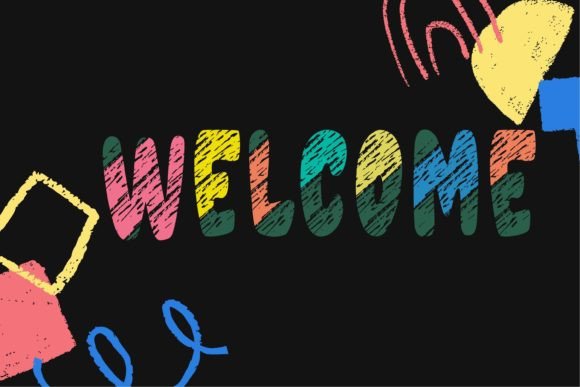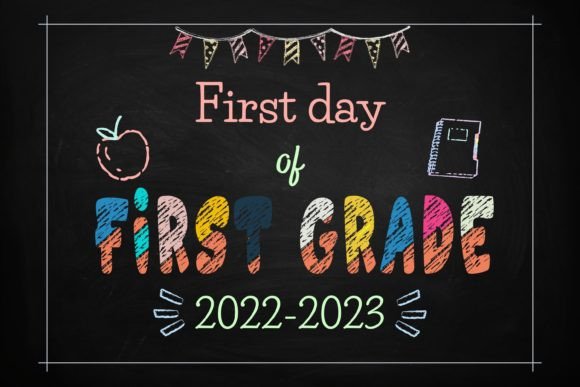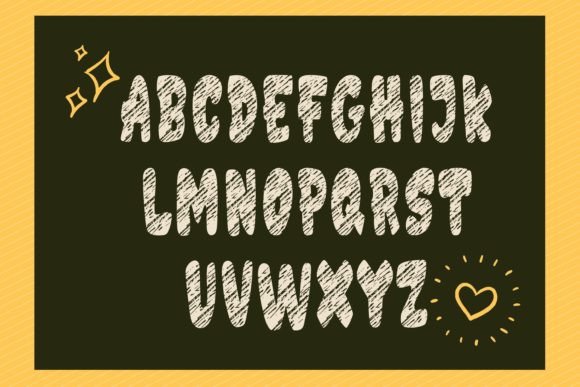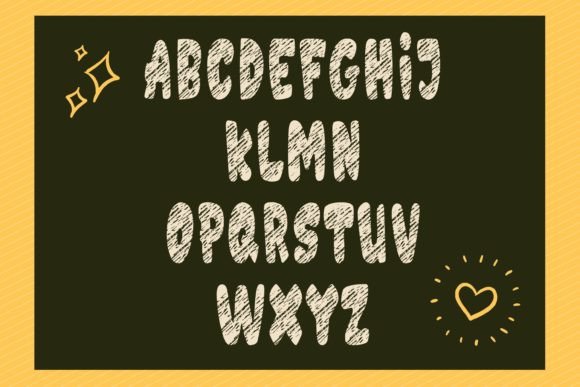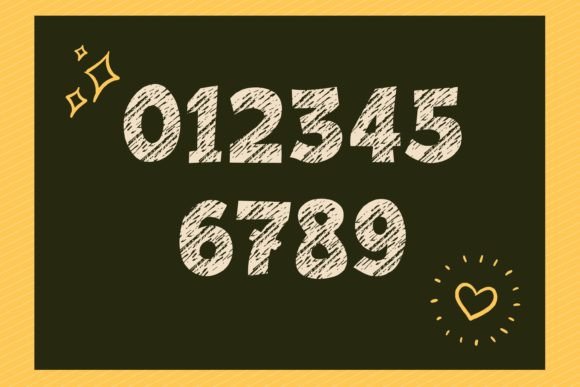
Crayon Font: Add a Pop of Color and Whimsy to Your Designs
Are you looking for a font that can add a touch of playfulness and nostalgia to your designs? Look no further than the Crayon font! This cute and colorful display font is perfect for creating eye-catching and engaging designs that resemble hand-drawn letters on a chalkboard using chalk.
What is Crayon Font?
Crayon font is a type of display font that mimics the look of hand-drawn letters created with crayons or chalk on a chalkboard. It has a distinctive, whimsical feel that makes it perfect for designs that require a playful and creative touch.
Uses of Crayon Font
Crayon font is incredibly versatile and can be used in a variety of design projects, including:
• School signboards: Add a fun and playful touch to school signboards with Crayon font.
• Coffee shop advertising: Create eye-catching posters and advertisements for coffee shops with Crayon font.
• Retro logos: Use Crayon font to create retro-style logos that evoke a sense of nostalgia.
• Handwritten posters: Create handmade-style posters with Crayon font for a unique and personalized look.
• Bar branding: Use Crayon font to create fun and playful branding for bars and restaurants.
Why Use Crayon Font?
There are many reasons why Crayon font is a great choice for designers and crafters. Here are a few:
• Unique and playful look: Crayon font has a distinctive, whimsical feel that sets it apart from other fonts.
• Easy to read: Despite its playful look, Crayon font is easy to read and understand, making it perfect for designs that require a clear message.
• Versatile: Crayon font can be used in a variety of design projects, from posters and advertisements to logos and branding.
• Adds a personal touch: Crayon font has a handmade feel that adds a personal touch to designs, making them more relatable and engaging.
Tips for Using Crayon Font
Here are a few tips for using Crayon font in your designs:
• Use it sparingly: Crayon font is a display font and is best used sparingly to add emphasis and interest to your designs.
• Experiment with colors: Crayon font is all about color and playfulness, so don’t be afraid to experiment with different colors and combinations.
• Pair it with other fonts: Crayon font can be paired with other fonts to create a unique and interesting contrast.
• Use it to add a personal touch: Crayon font is perfect for adding a personal touch to designs, such as handmade-style posters or craft projects.
Crayon font is a fun and playful display font that can add a pop of color and whimsy to your designs. With its unique and playful look, ease of use, and versatility, it’s perfect for designers and crafters who want to create eye-catching and engaging designs. Whether you’re creating school signboards, coffee shop advertising, retro logos, or handmade-style posters, Crayon font is a great choice. So why not give it a try and see how it can bring your designs to life?